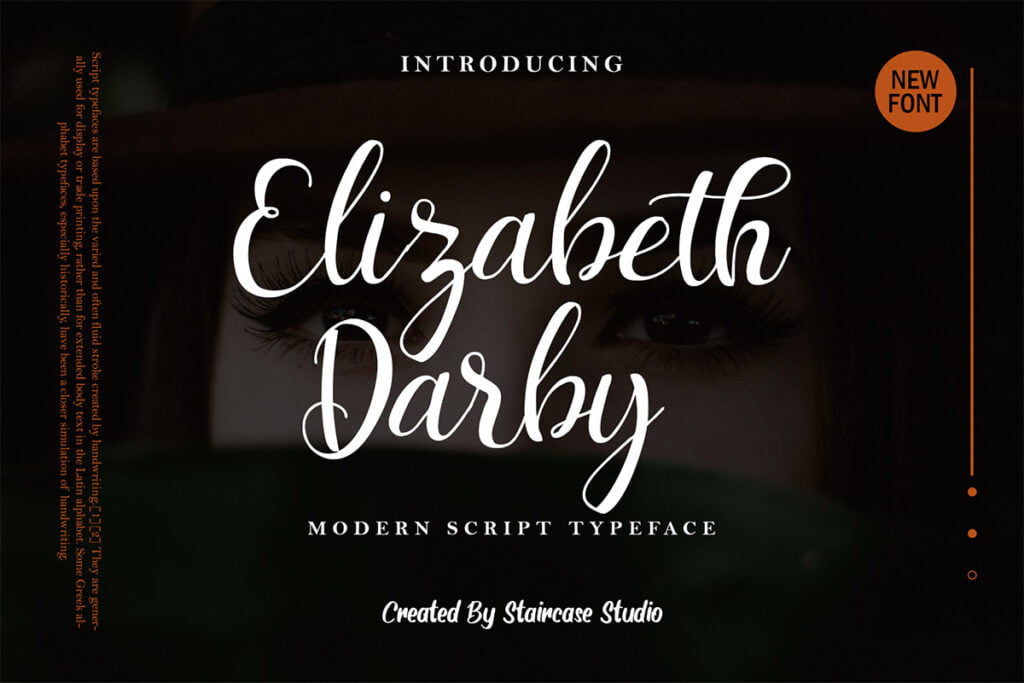
Elizabeth Darby Font
Elizabeth Darby Script Font, A collection of letters and numbers suitable your projects also great for Logotype, Branding Design, Logo Design, Digital Lettering Arts, T-Shirt/Apparel, Poster, Magazine, Signs, Advertising Design, and any design needs.
Elizabeth Darby Script Font